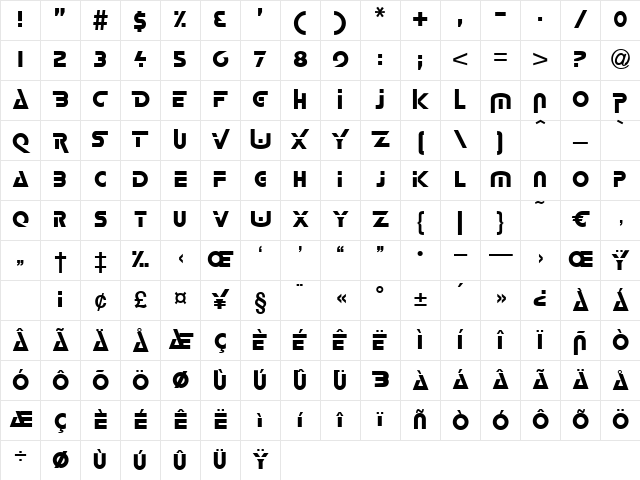
Parabel Regular
Design Context for Parabel
Parabel is a composed and adaptable typeface that performs quietly and consistently across a wide range of design contexts.